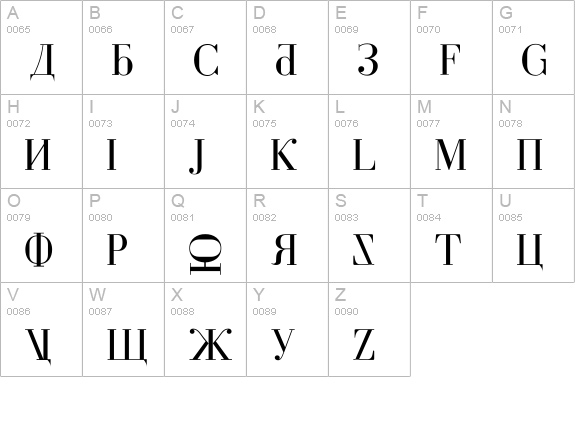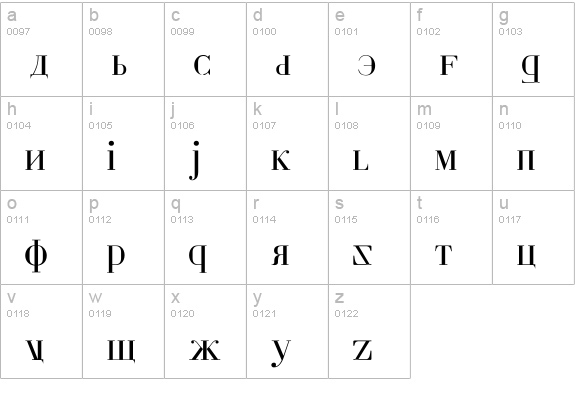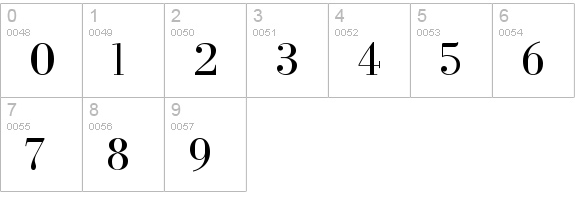
Introducing Cyberia font, a futuristic and cutting-edge typeface that exudes a sleek and modern aesthetic. With its sharp lines and bold design, Cyberia is perfect for projects that require a contemporary and tech-savvy look. Whether you're working on a website, logo, or digital design, this font will give your work a dynamic and professional flair. The best part? Cyberia is available for free download at FontsMarket.com! Simply visit the website to access this innovative font and elevate your designs with its unique style. Don't miss the opportunity to enhance your projects with Cyberia's seamless blend of technology and creativity. Download now and let your creativity soar with Cyberia font.